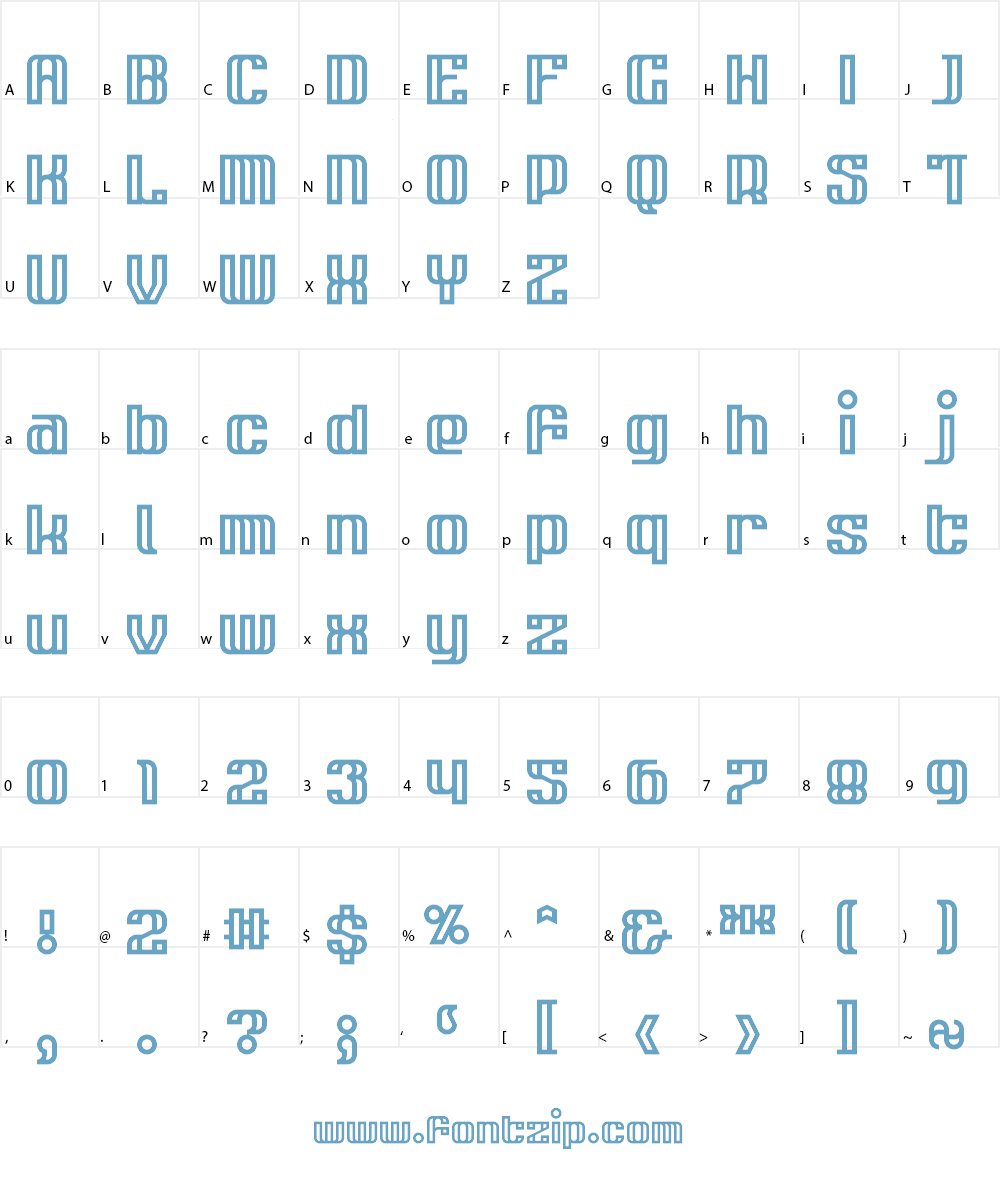
Tangereen is an all-lowercase, double-line design I made for fun. Supports Dutch and English.
Tangereen 2 is a continuation of the design, and supports several languages.